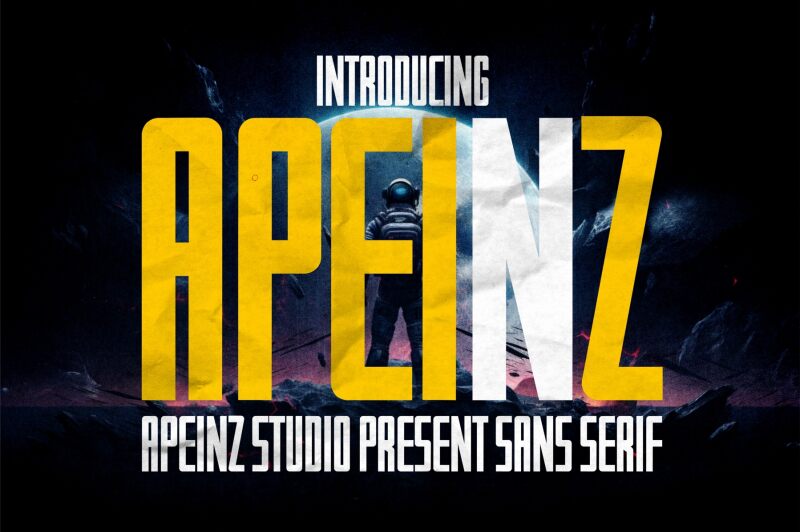
Apeinz font, created by Arif Purnomo, is a modern and technological sans serif typeface. In a dynamic composition, lines with industrial attributes work together to create futuristic symbols with monolithic impressions. The free font is geometric and strong so that each letter captures attention and delivers your message.
Fonts have a large effect on designs, so choose the best one for your branding designs and advertisements! Use the font for flyers and magazines by focusing on the legible and nearly uniform letters. The modern look also suits presentations, posters, and websites, where simplicity is a key factor.